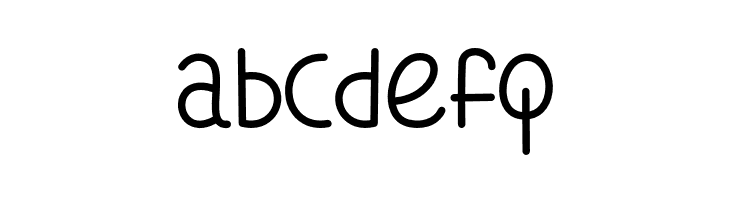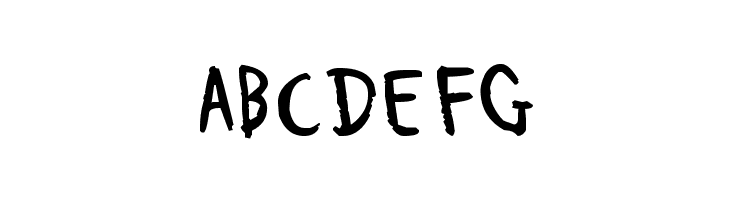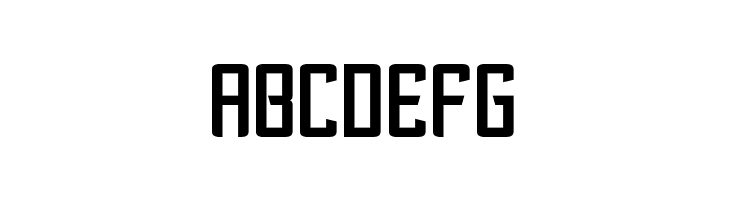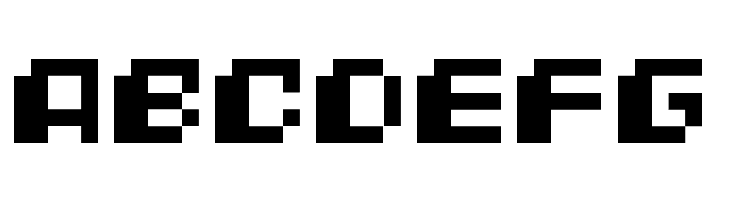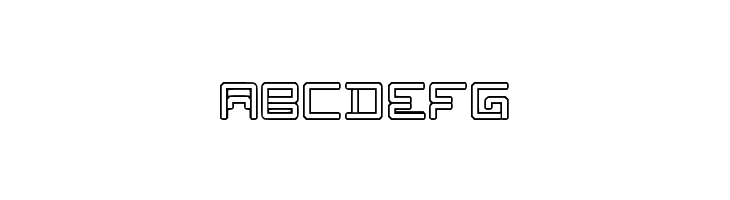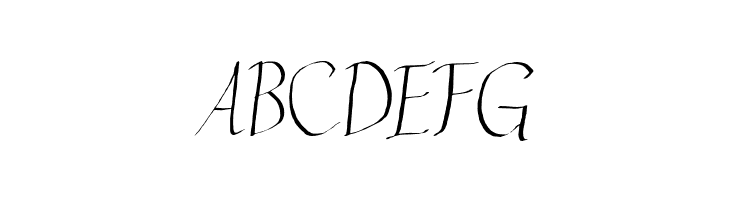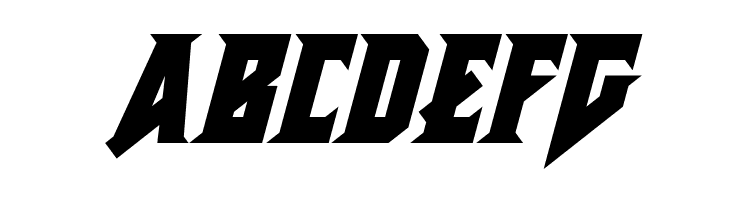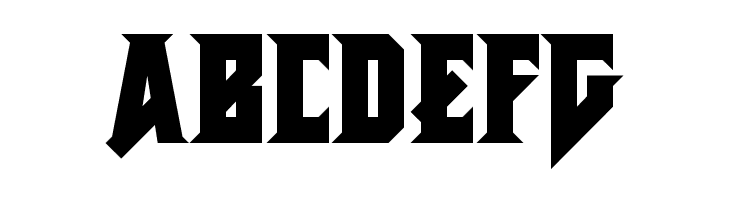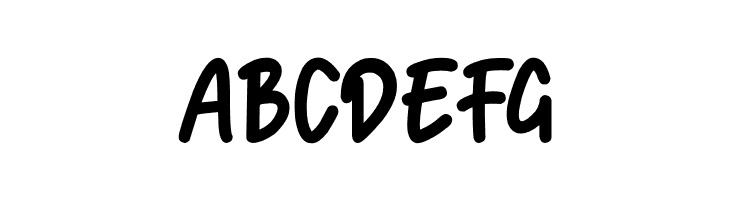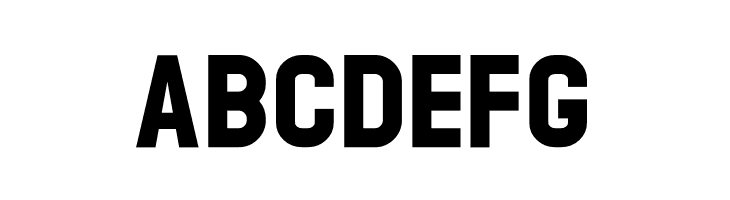
A bold, distressed collegiate-style font with a vintage feel.
A bold, modern font with a geometric and condensed design.
A bold, italicized font with a dynamic, heroic style.
A bold, dynamic font with sharp angles and a superhero-inspired style.
A bold, angular font with a dynamic, italicized style.
A bold, italicized font with a dynamic and heroic style.
A bold, playful font with rounded edges and a hand-drawn style.
A clean, modern typeface with consistent stroke width and excellent legibility.
A playful, handwritten font with rounded edges and consistent stroke width.
A bold, hand-drawn font with a playful and artistic style.
A bold, geometric font with a futuristic and technical design.
A bold, geometric font with angular lines and a modern aesthetic.
A futuristic, geometric font with a hollow, outlined design.
An expressive, angular font with a dynamic and slightly slanted style.
A dynamic, cursive-like font with elegant, flowing strokes.
A bold, angular, italic font with a dynamic and aggressive style.
A bold, angular font with a gothic-modern fusion, perfect for dramatic designs.
A playful, handwritten-style font with bold, rounded characters.
A bold, modern font with strong strokes and clean lines, ideal for impactful designs.
An elegant, cursive font with decorative flourishes and artistic style.
An elegant, flowing script font with a handwritten style.
A fluid, handwritten style with elegant, elongated characters.
A cursive, handwritten font with elegant, flowing curves.
A fluid and elegant handwritten font with dynamic curves and playful special characters.
A bold, handwritten font with dynamic brush strokes and an energetic style.
An elegant script font with flowing cursive strokes and decorative swashes.
A bold, italicized typeface with a dynamic and heroic style.
A bold, dynamic font with angular lines and a slanted orientation, perfect for impactful designs.
A bold, angular font with a dynamic and futuristic style.